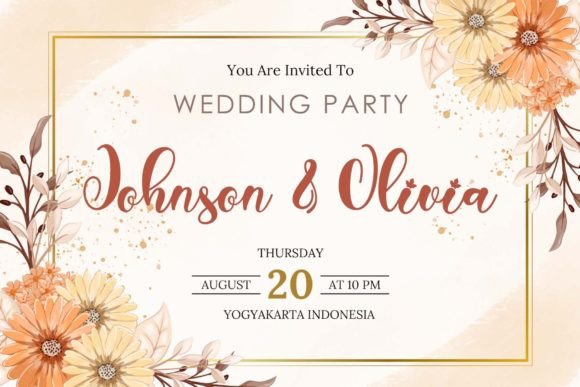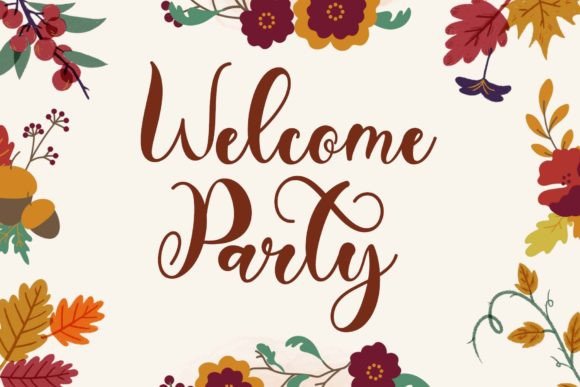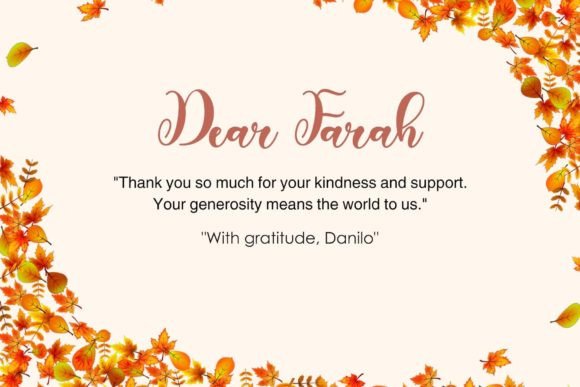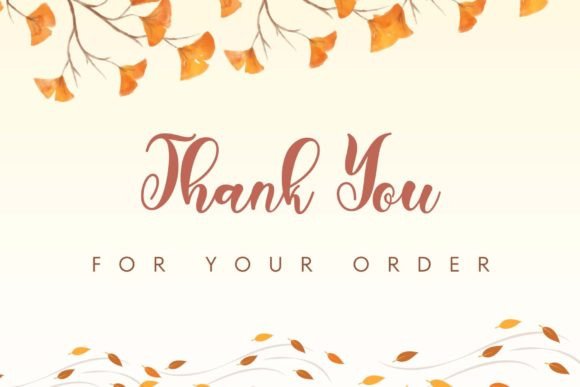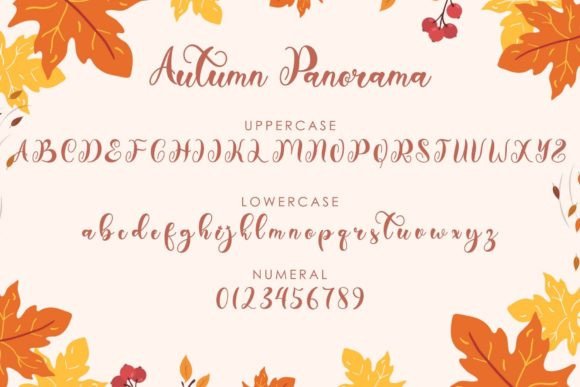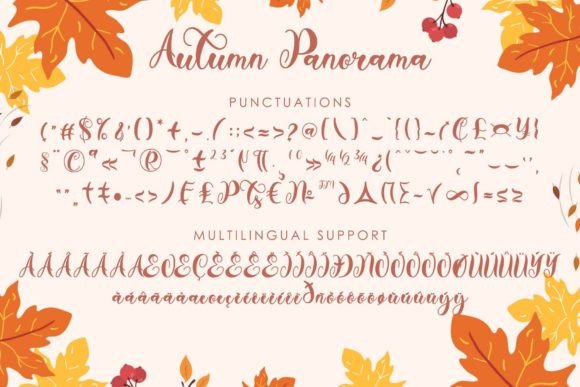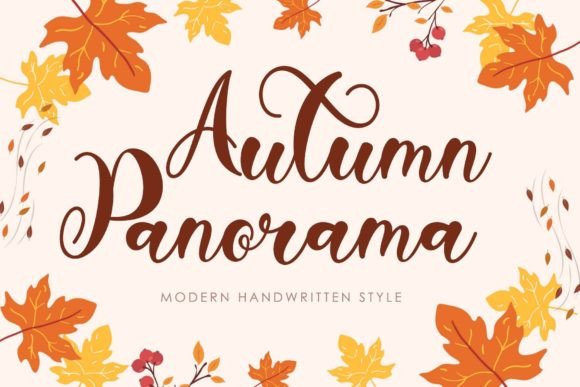
The Magic of Autumn Panorama Font: A Designer’s Delight
I’ll never forget the time I was working on a fall-themed project for a client, and I just couldn’t find the perfect font to capture the cozy, warm essence of the season. I scrolled through page after page of font options, but nothing seemed quite right. That was until I stumbled upon the stunning Autumn Panorama Font. ✨
This beautiful, handwritten font has been a game-changer for my design projects, and I’m excited to share its magic with you. In this article, we’ll dive into the world of Autumn Panorama Font, exploring its features, how to use it, and some fantastic alternatives to try.
Autumn Panorama Font: A Personal Review
- ✨ Multilingual support: This font is perfect for designers working with clients from diverse linguistic backgrounds.
- ✅ Comprehensive character set: Uppercase, lowercase, numerals, punctuations – it’s all here!
- 🌟 Beautiful handwritten aesthetic: Autumn Panorama Font exudes a warm, personal touch that’s ideal for fall, autumn, Christmas, Halloween, and Valentine’s Day projects.
- 📚 Supports OpenType features: Get creative with glyphs, stylistic alternates, and more.
While Autumn Panorama Font is an excellent choice, there are a few minor things to keep in mind: 🤔
- ⚠️ Some characters may require manual kerning: As with any font, you might need to adjust kerning for certain character combinations.
- ⚠️ Limited availability of extended language support: While the font supports multiple languages, some extended language characters might not be included.
The Story Behind Autumn Panorama Font
Legend has it that the designer of Autumn Panorama Font was inspired by the breathtaking autumn landscapes of New England. With a passion for handwritten fonts and a love for the season, they crafted a font that captures the essence of fall’s cozy warmth. 🌟
Q: What type of projects is Autumn Panorama Font best suited for?
A: Autumn Panorama Font is perfect for posters, banners, branding, fall, autumn, Christmas, Halloween, back to school, Valentine’s Day, and more.
Q: Does Autumn Panorama Font support OpenType features?
A: Yes, Autumn Panorama Font supports OpenType features, including glyphs, stylistic alternates, and more.
Q: Is Autumn Panorama Font available in multiple languages?
A: Yes, Autumn Panorama Font offers multilingual support, making it a great choice for designers working with clients worldwide.